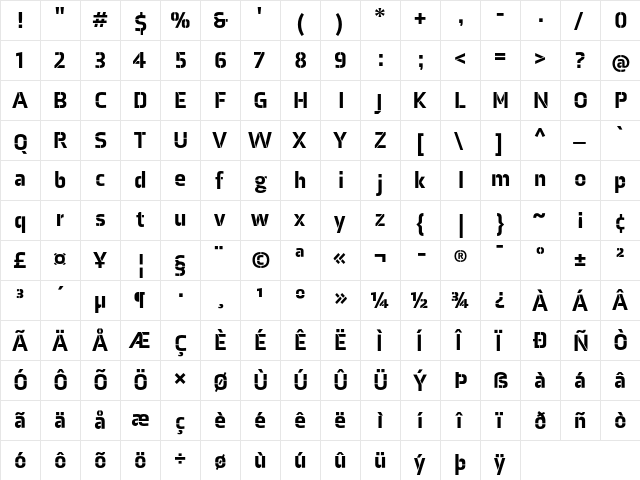
Axia Stencil Black Regular
| Foundry | Sibylle Hagmann | Kontour Type, LLC |
| Designer | Sibylle Hagmann |
Design Context for Axia Stencil Black Typeface
Axia Stencil Black has the rough pragmatism of spray-painted stencil signage, adding a raw, street-level authenticity to designs.
Ideal for industrial branding, streetwear, military-adjacent aesthetics, and urban signage projects.
Pro Tip: Pair Axia Stencil Black with raw, utilitarian design elements — exposed concrete textures, flat colour, and minimal ornamentation suit it well.